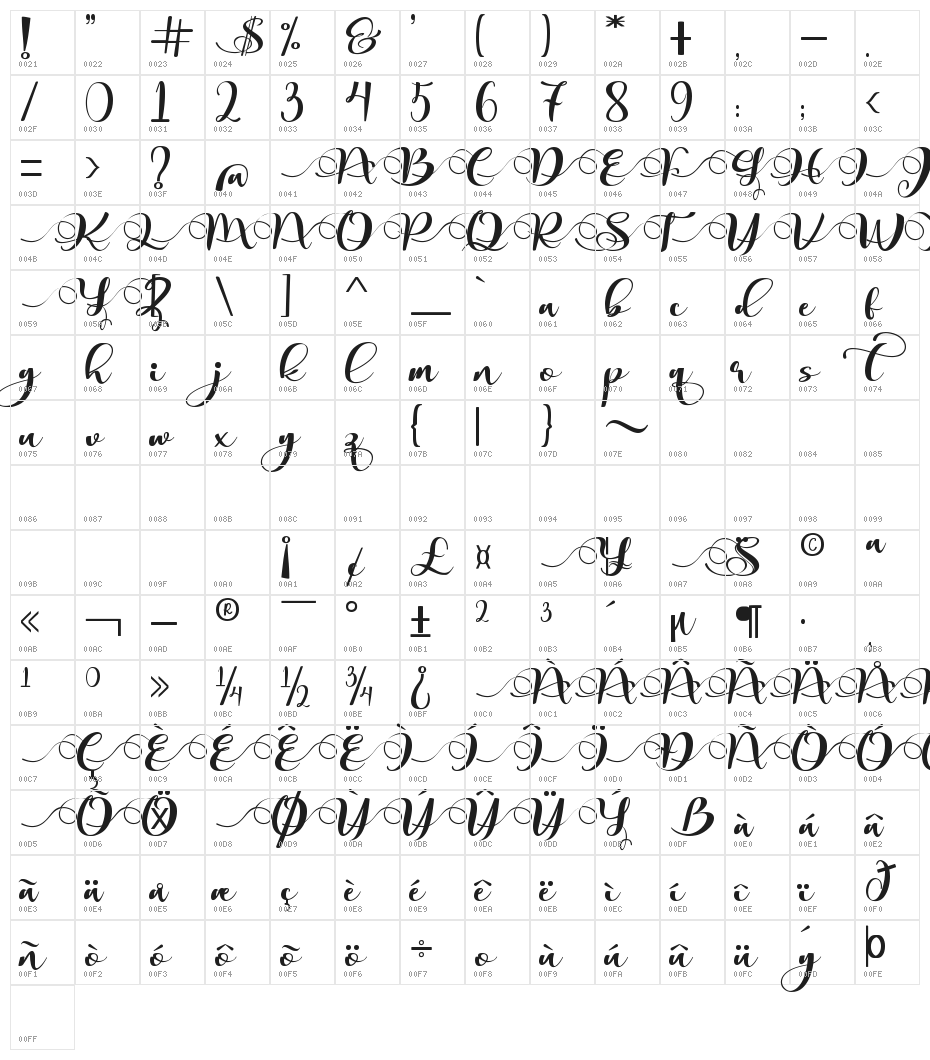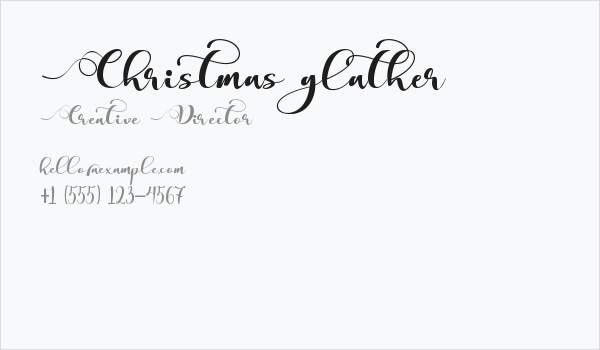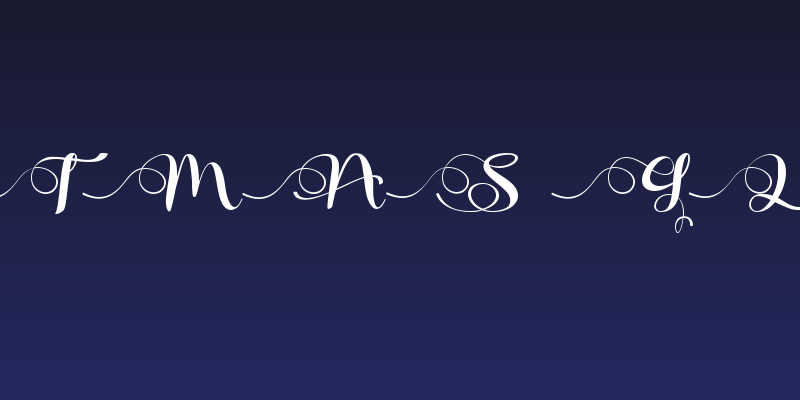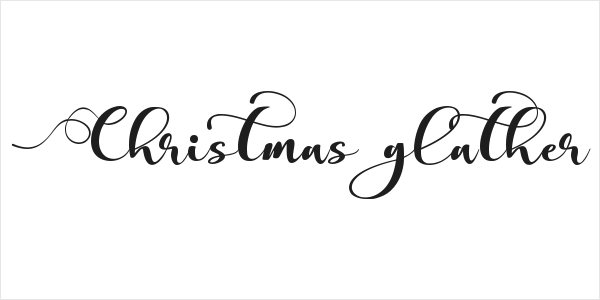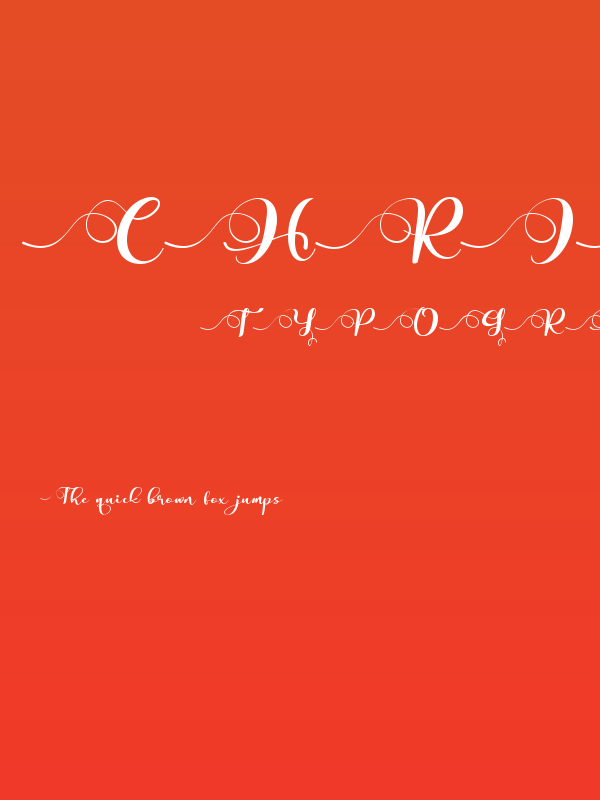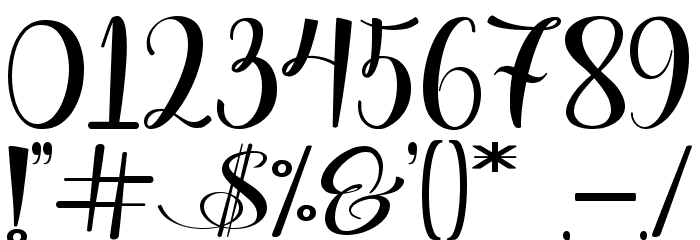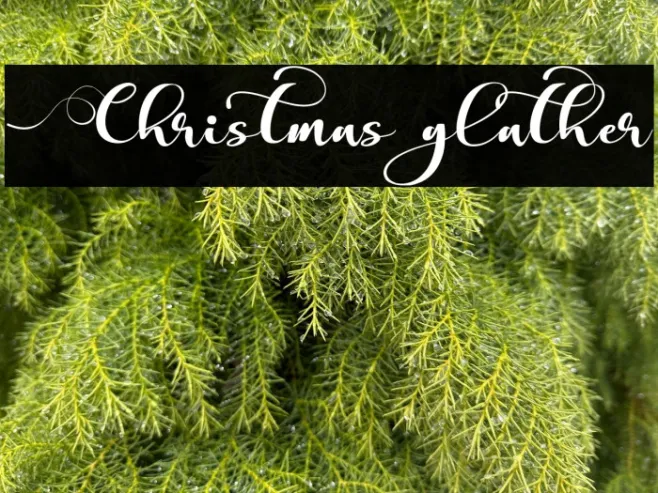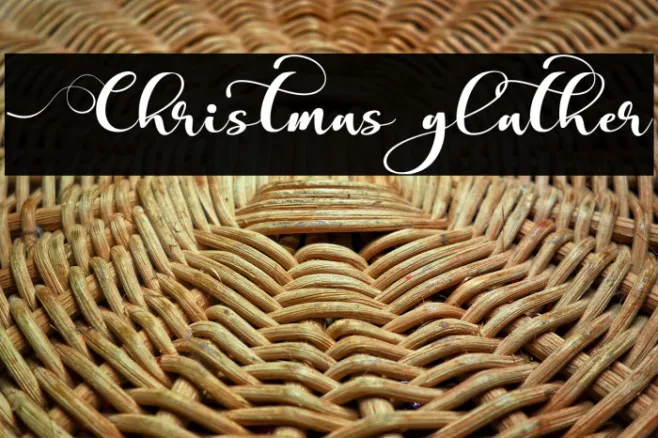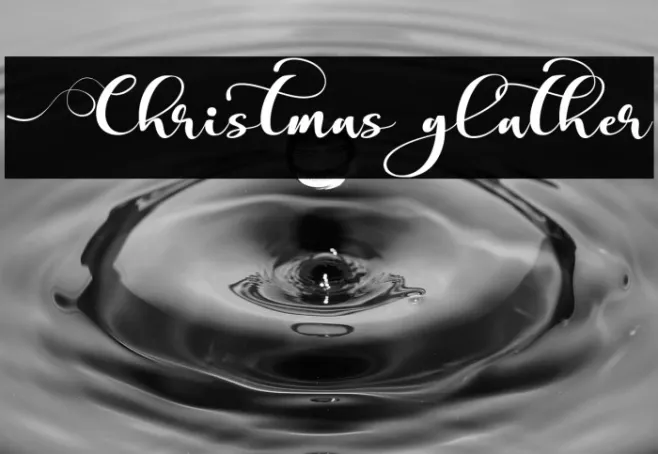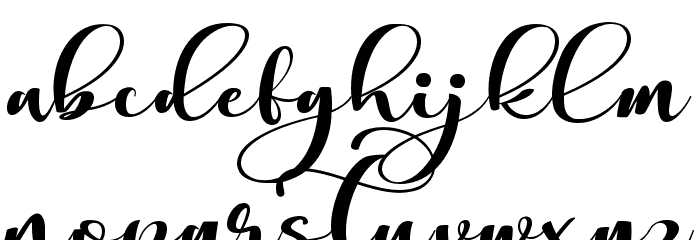
Christmas glather Font
Christmas glather Description
This font exudes a festive and elegant charm, characterized by its flowing, cursive script style. The uppercase letters are adorned with intricate swirls and loops, adding a touch of sophistication and whimsy. The lowercase letters maintain a consistent, smooth flow, enhancing readability while retaining the decorative flair. The numerals are bold and slightly elongated, complementing the overall aesthetic. Special characters are creatively designed, integrating seamlessly with the script style. This font is perfect for creating a warm, inviting atmosphere, ideal for holiday-themed projects or any design requiring a touch of elegance and festivity.
| Use Case | Headlines, Invitations, Logos |
| Proposed Projects | Ideal for holiday cards, invitations, festive branding, and decorative signage. |